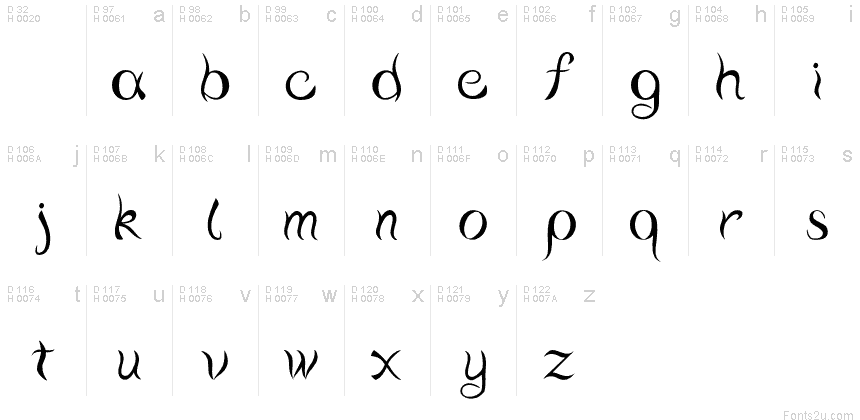
Water scriptRegular
Free for personal use. Donate to use commercially. When I designed this font I wanted to create a soft , flowing feeling that would give a sense of floating in a peaceful stream. To achieve this I designed the text without the usual sharpness if edges but rounded and smoothed the design to provide a feeling of motion and a sense of being drawn into the flow of the text. I believe the font provides a joyful, lighthearted softness of spirit, providing the user/reader with a calming affect.